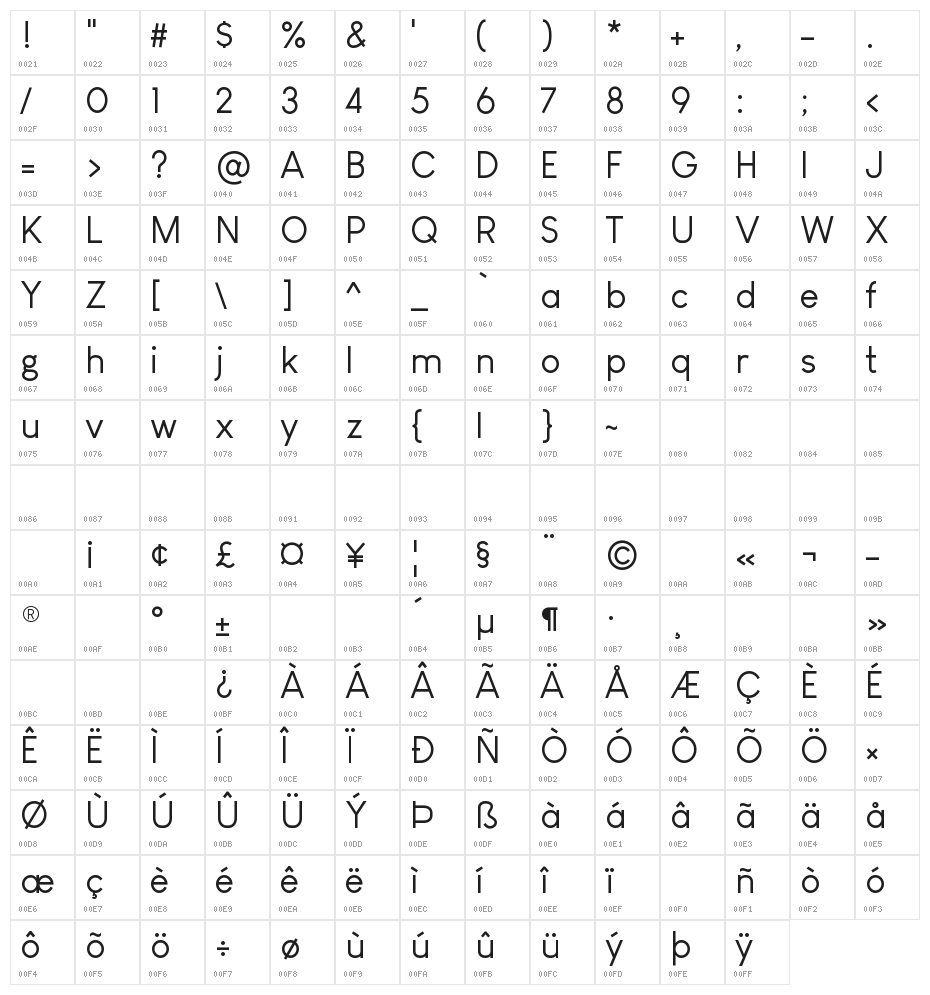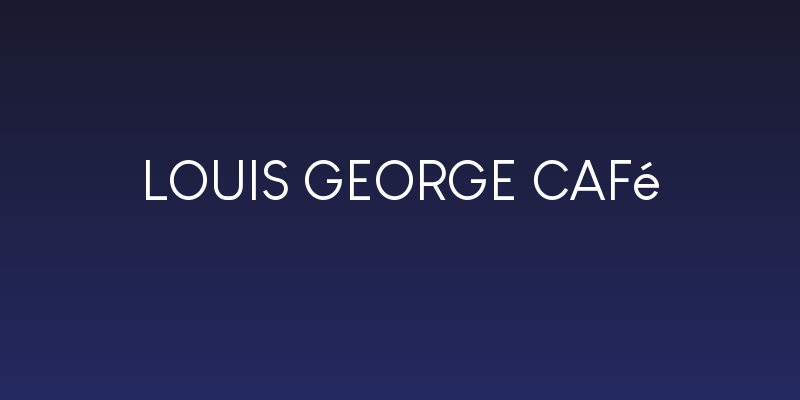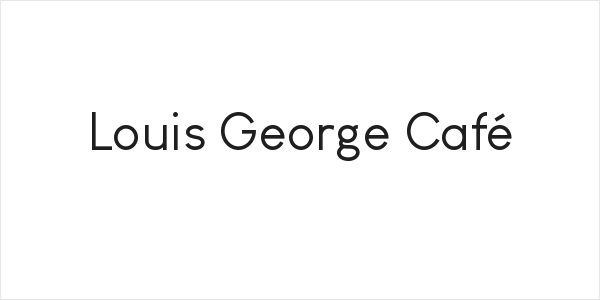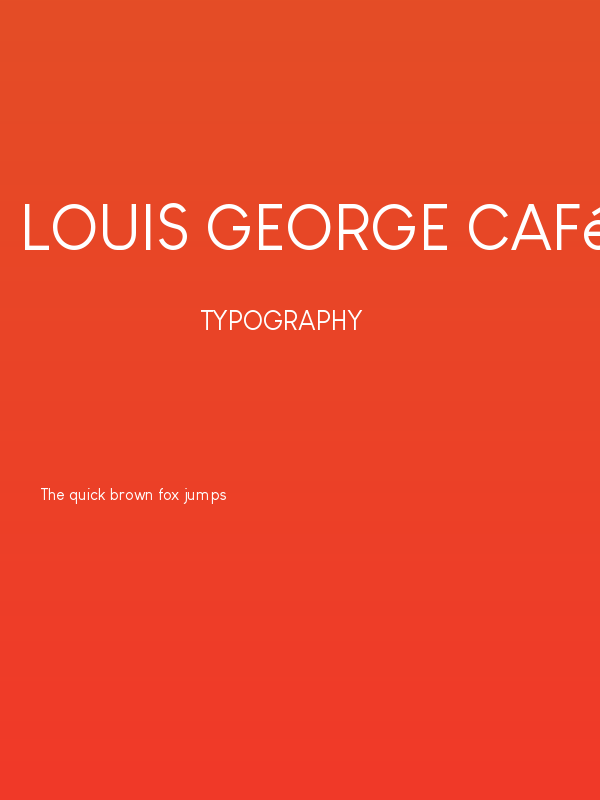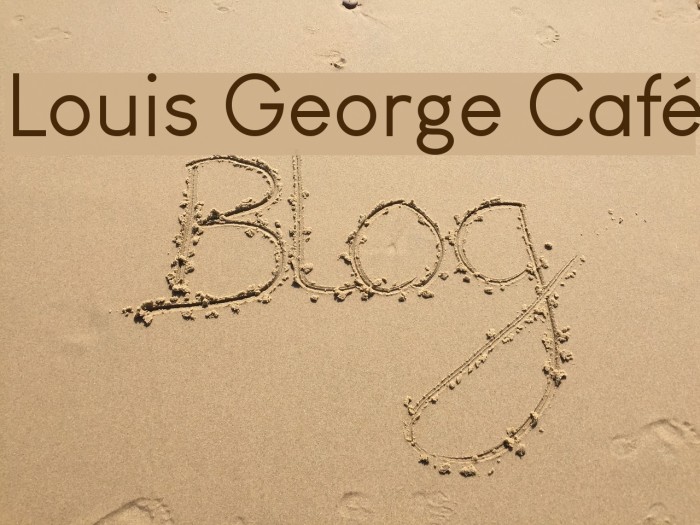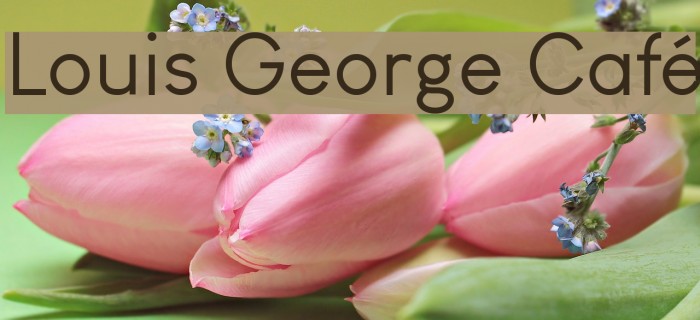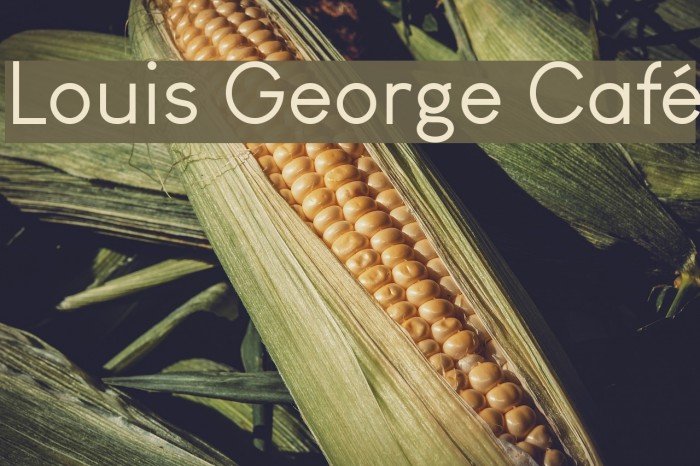
Louis George Café Font
Louis George Café Description
This font exhibits a clean and modern sans-serif style, characterized by its geometric shapes and uniform stroke widths. The uppercase letters are bold and assertive, while the lowercase letters maintain a consistent and harmonious appearance. The numerals are clear and legible, making them suitable for various applications. The special characters are designed with simplicity and functionality in mind, ensuring they complement the overall aesthetic. The font's design is versatile, making it suitable for both digital and print media. Its clarity and straightforwardness make it an excellent choice for branding, advertising, and editorial design.
| Use Case | Headlines, Body text, Logos |
| Proposed Projects | Ideal for branding, advertising, editorial design, and digital interfaces. |